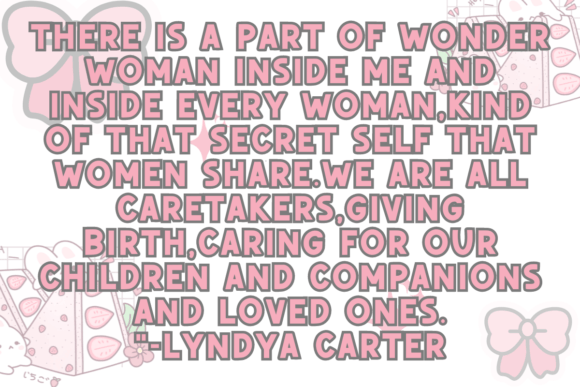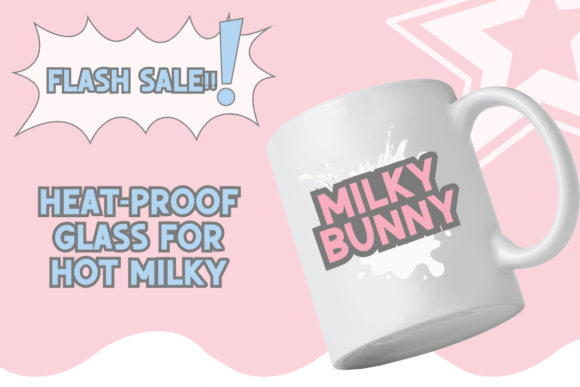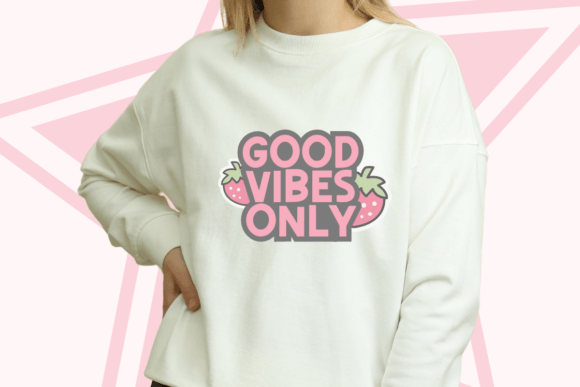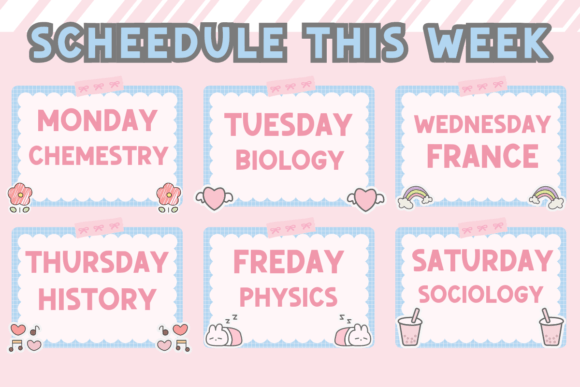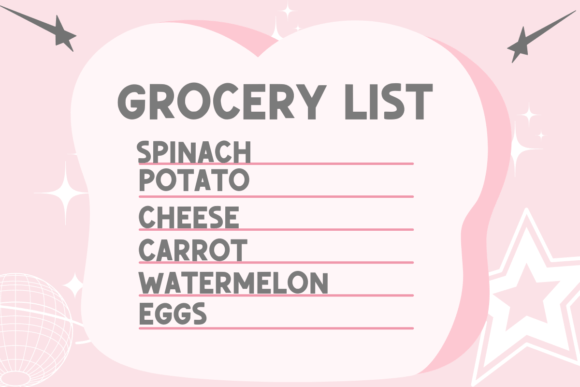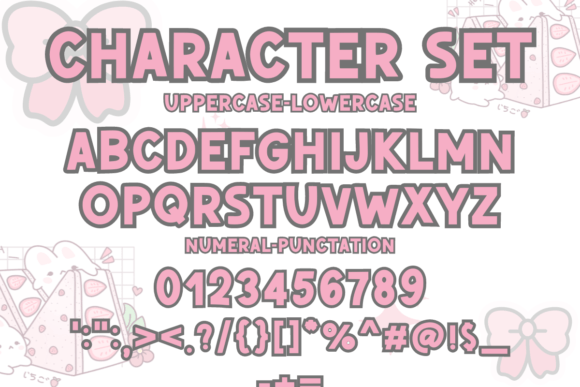
Introduction to Gentle Blossoms Font
Gentle Blossoms is a cute and adorable handwritten font.
cute and fun style This font is very fun with natural strokes and touches.
Key Features of Gentle Blossoms Font
Why Choose Gentle Blossoms Font?
Gentle Blossoms Font offers exceptional quality and versatility, making it a valuable addition to your design toolkit. Whether you’re creating for personal projects or commercial use, Gentle Blossoms Font delivers professional results.